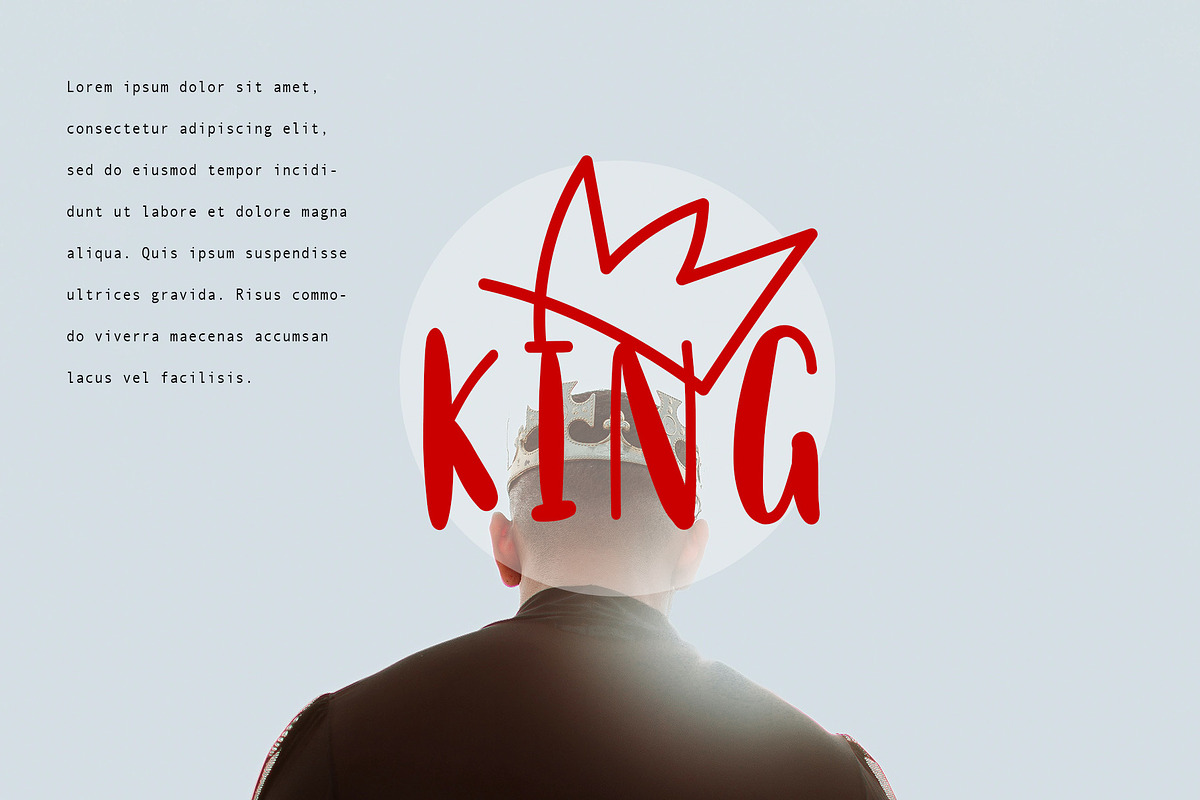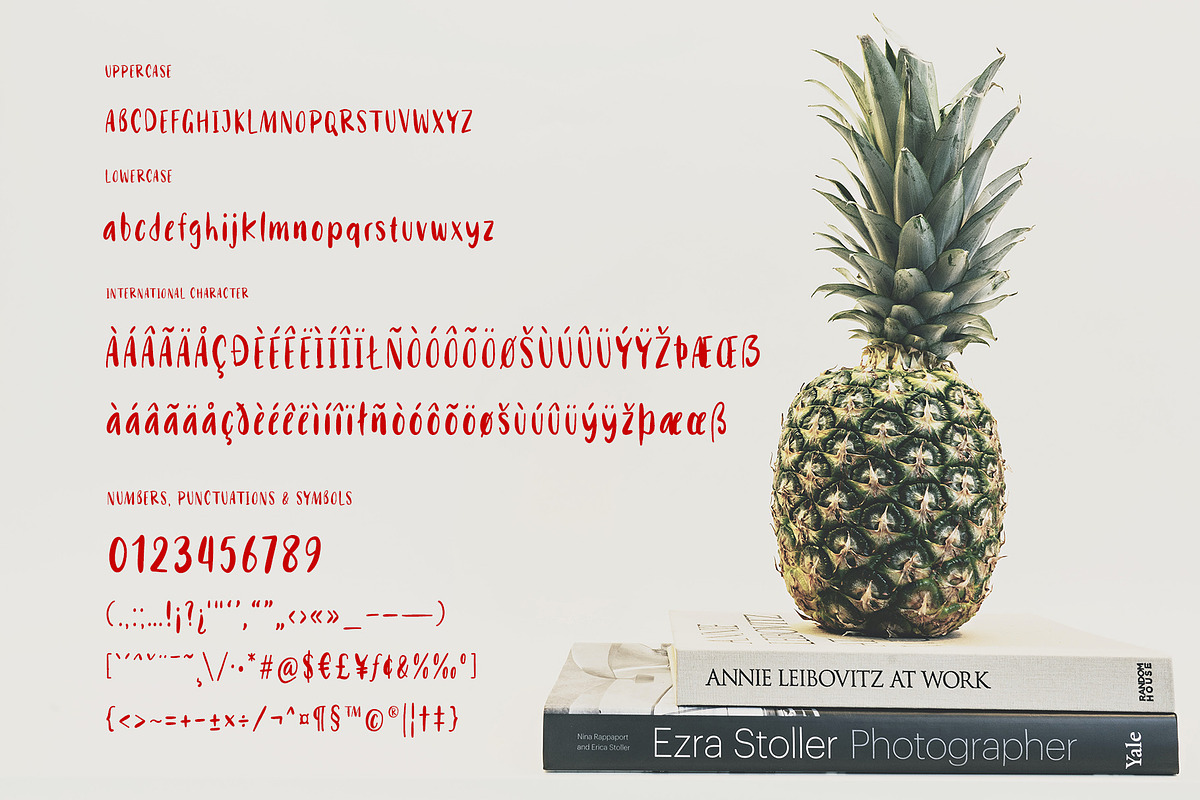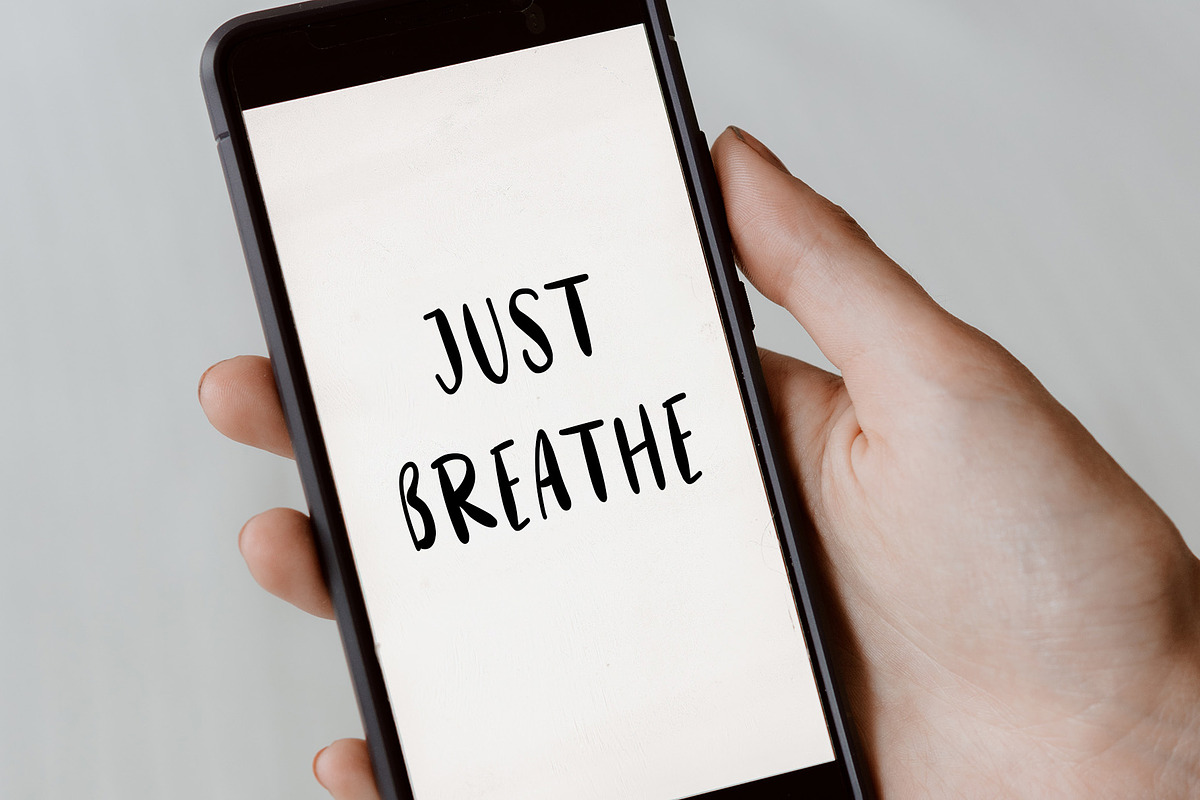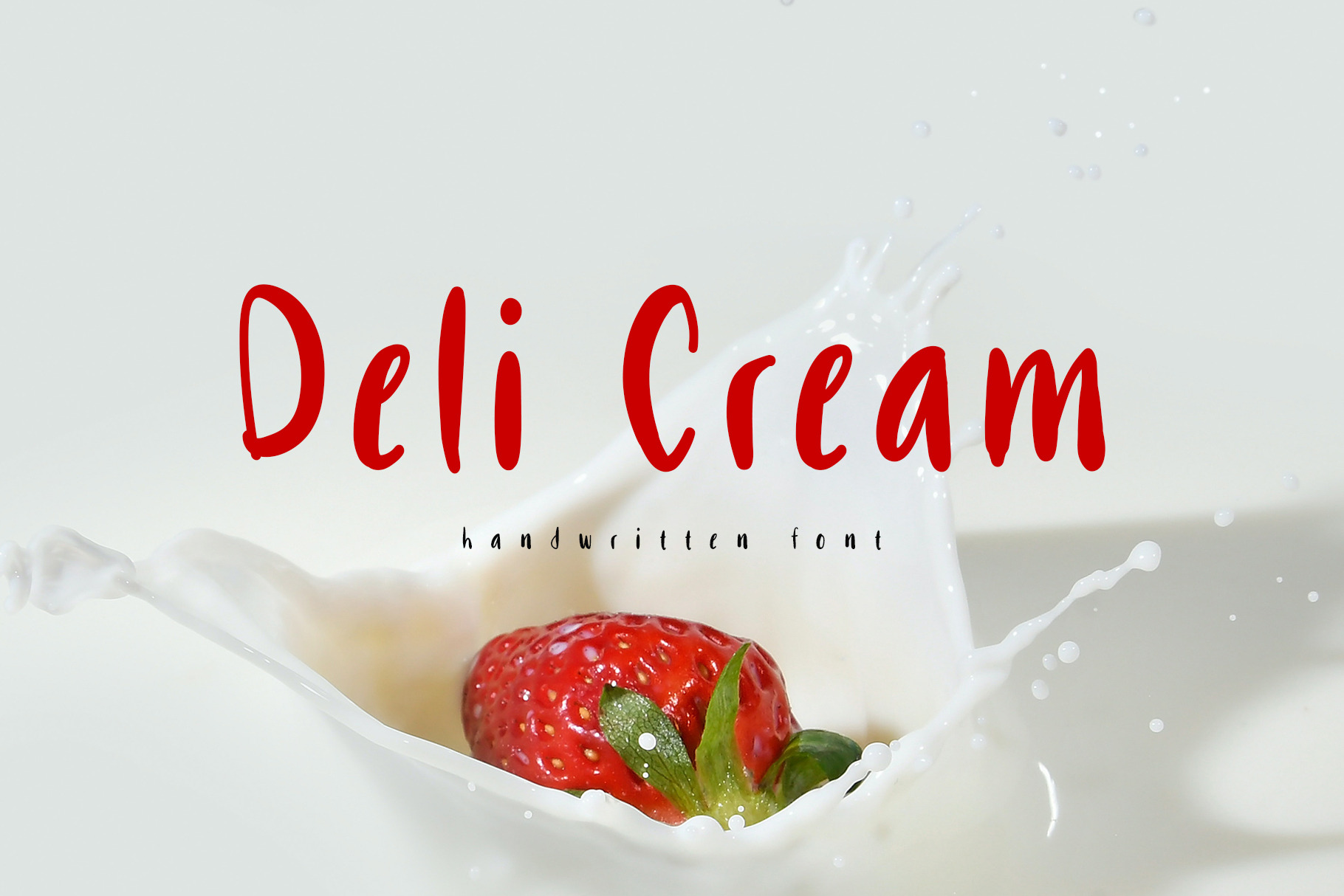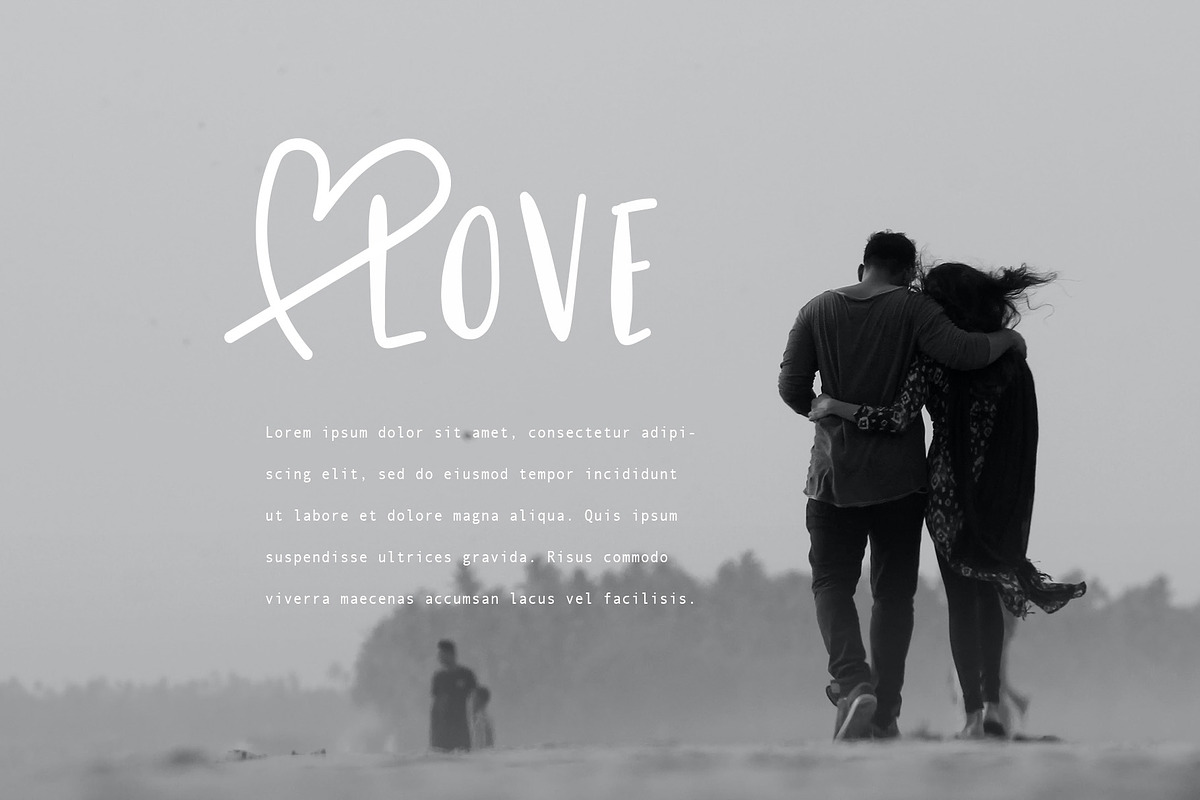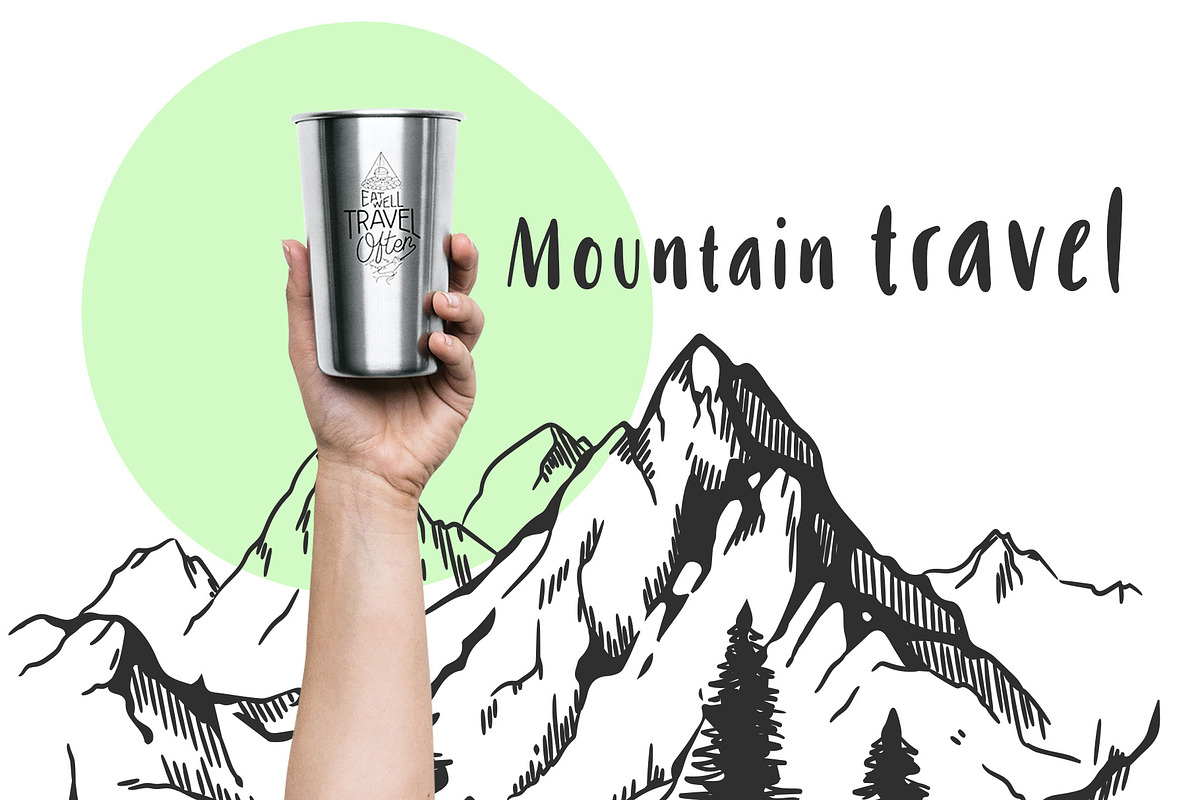
Deli Cream Handwritten Font
Deli Cream is a charming font created with a unique handwriting theme. This font is designed to exude a sense of warmth, friendliness, and personal touch in every letter.
The creation of Deli Cream font was inspired by the idea of bringing the delightful experience of handwritten notes and messages to the digital world. In an age where technology often dominates communication, we wanted to capture the essence of personal connection and the beauty of individual handwriting.
The font's name, Deli Cream embodies the idea of a delightful and creamy experience, akin to savoring a delectable treat. Just like the creamy texture of your favorite dessert, this font aims to leave a pleasant and memorable impression on its users.
Each letter and character in Deli Cream is crafted with care, capturing the nuances and imperfections of handwritten strokes. This font carries the authenticity and genuine feel of personal handwriting, making it perfect for adding a personal touch to various design projects, such as greeting cards, invitations, and heartfelt messages.
Deli Cream font is a tribute to the art of handwriting and the power it holds in conveying emotions and sentiments. It symbolizes the timeless appeal of handwritten communication, which remains irreplaceable even in the digital age.
Through Deli Cream we hope to reignite the joy of handwritten expression and remind people of the beauty that lies in simplicity and personal connection. This font serves as a bridge between the nostalgic charm of handwriting and the convenience of digital communication, providing designers and users alike with a delightful and heartfelt option to add a touch of authenticity and warmth to their creations.